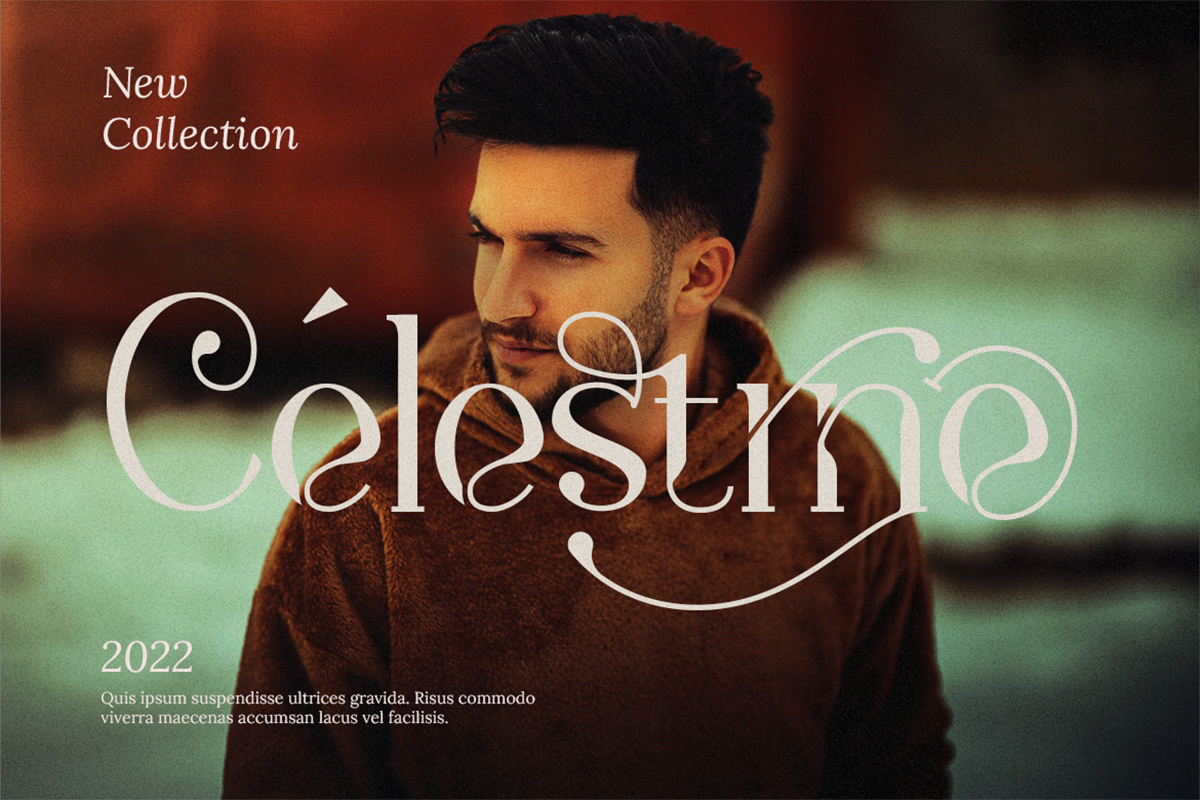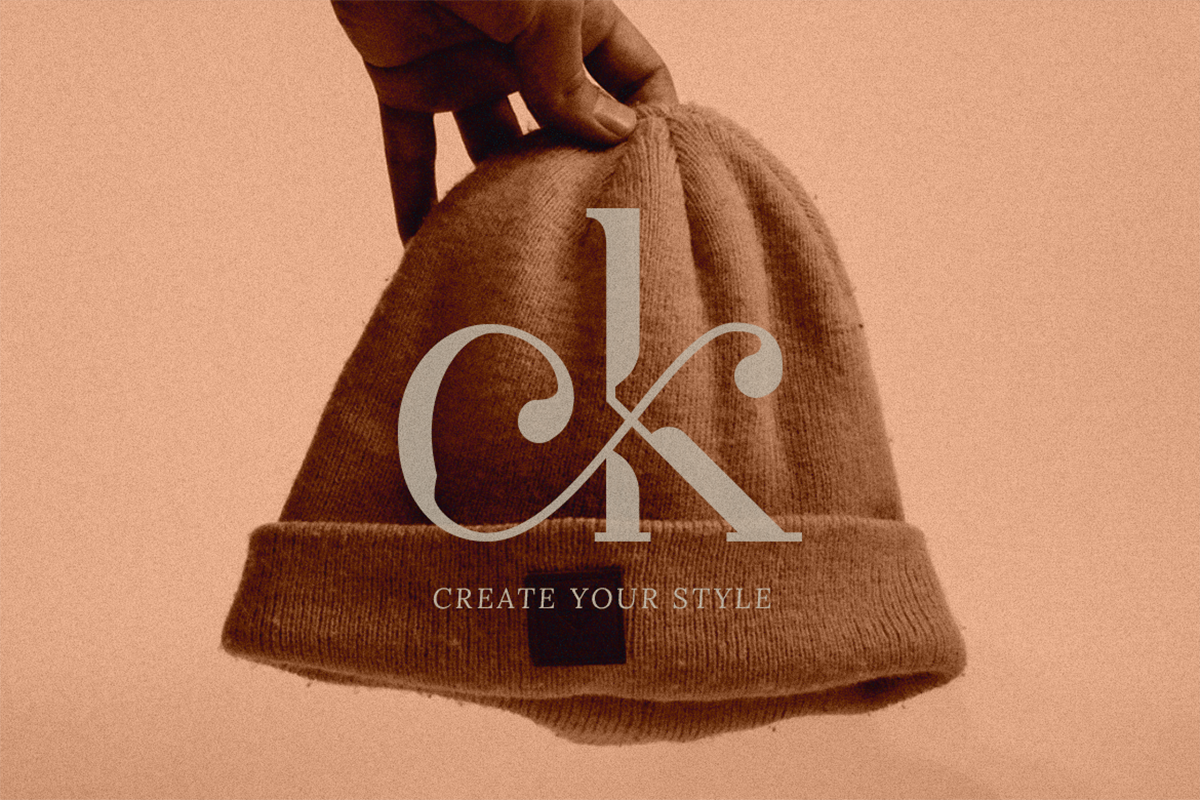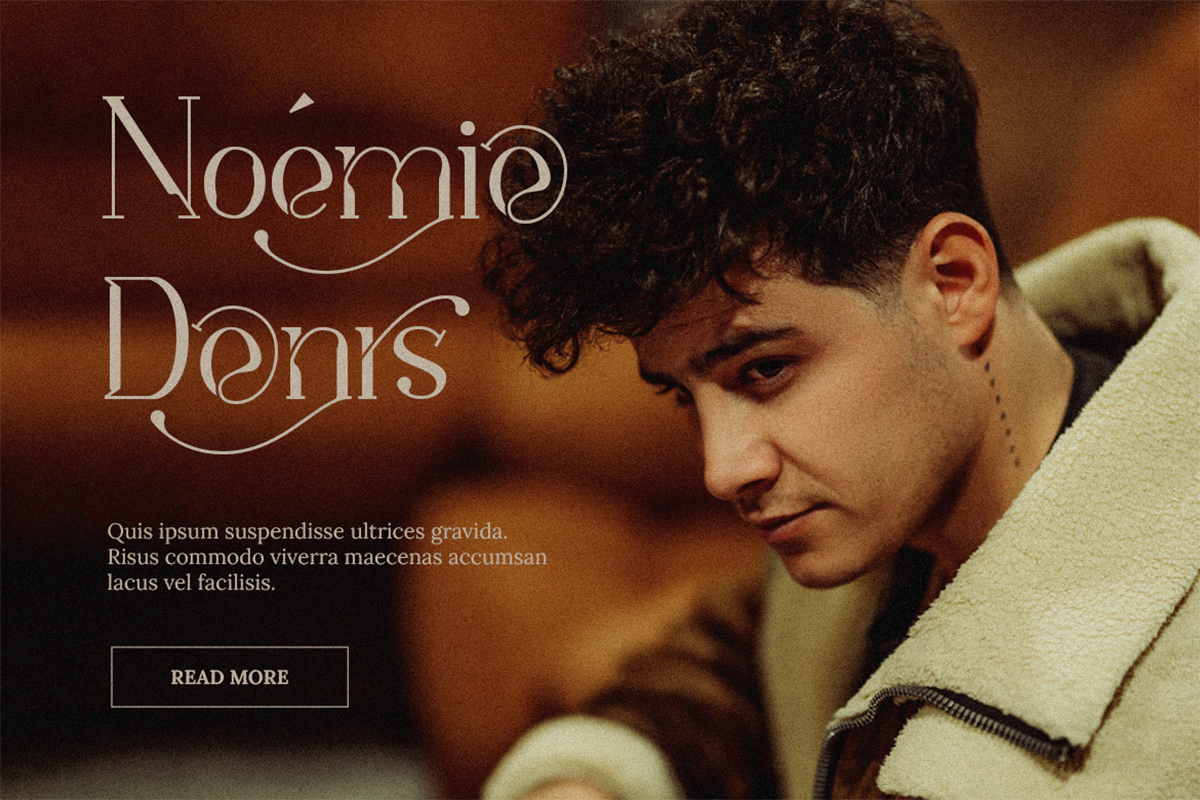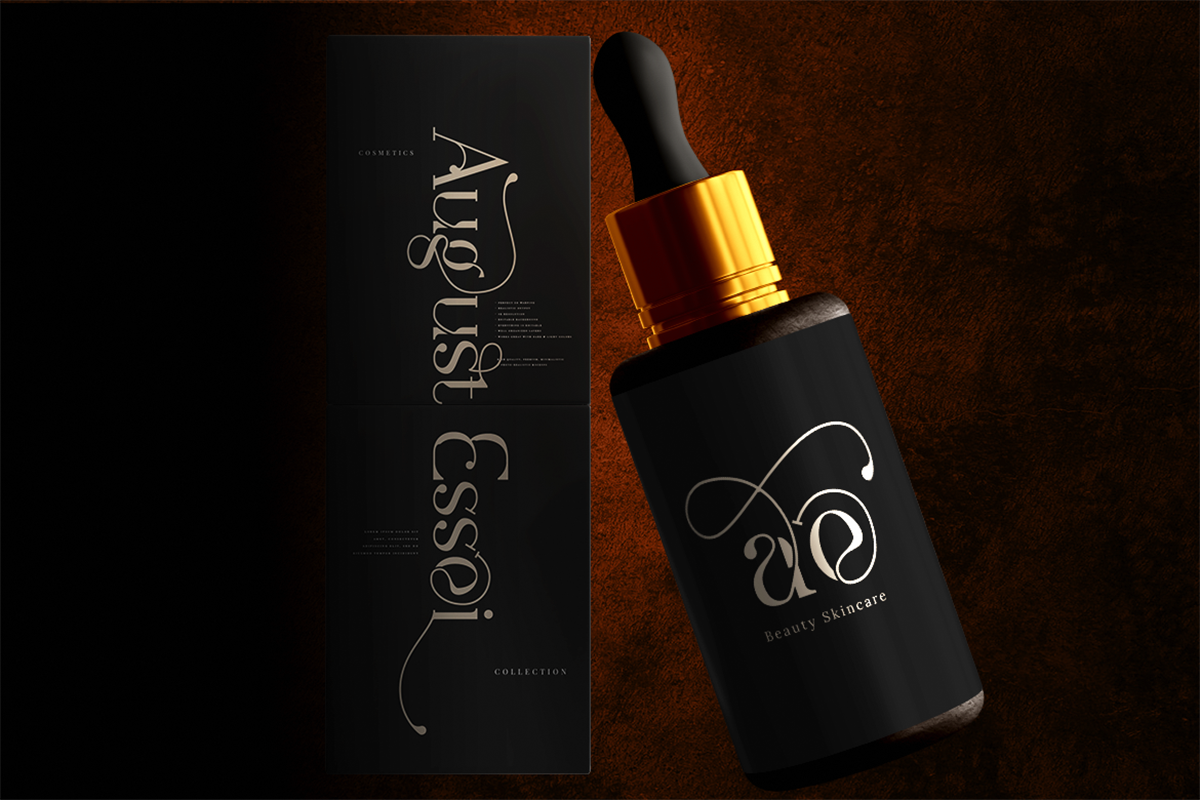
Sebastian Free Font
Sebastian Free Font is a bold and striking modern serif with a contemporary edge. Its clean lines and elegant curves make it the perfect choice for fashion-forward designs, giving them a touch of sophistication and elegance. The font’s versatility makes it ideal for both digital and print projects, and its sharp, precise details give it a timeless feel that will never go out of style.